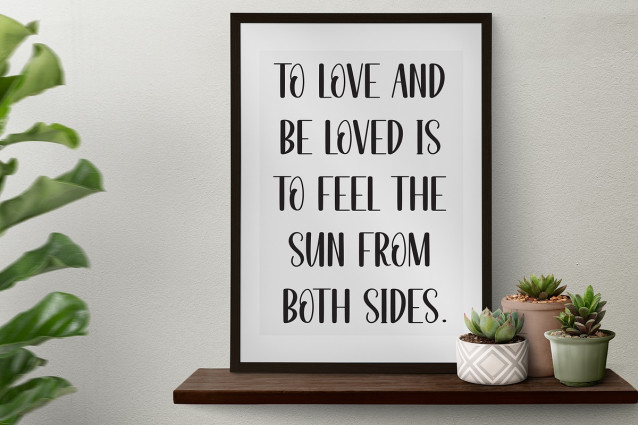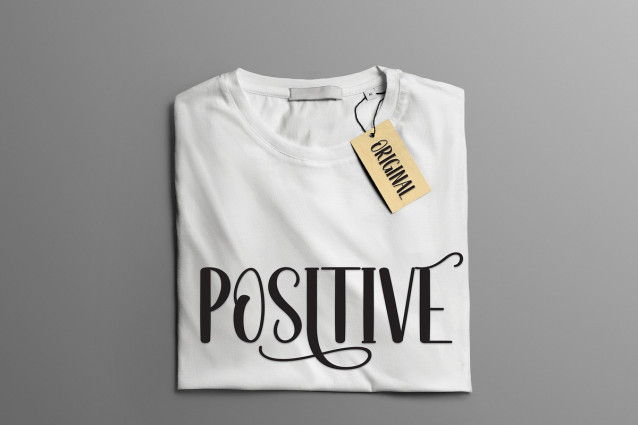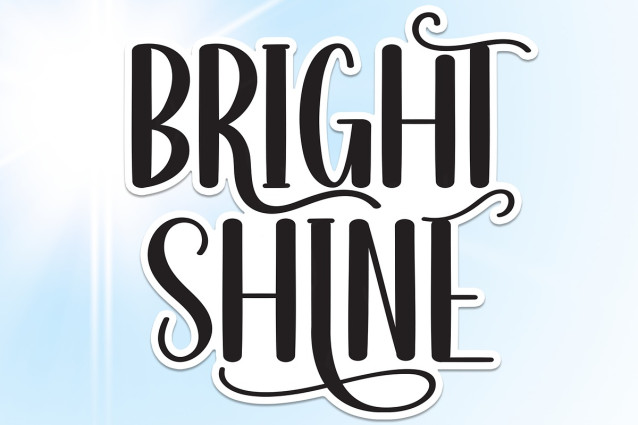
Bright Shine Handcrafted Font
Bright Shine Handcrafted Font A popular and professional script font. Modern and elegant, this typeface is made of beautiful creative strokes.This font is perfect for your creative ideas, both formal and informal. It has a modern style with a touch of creative ideas that is very suitable to be applied anywhere that requires creative ideas such as invitation cards,letterheads, website logos, social media, banners, advertisements, brochures, packaging products, leather products, and any product that requires writing.By using this font, all of your products will look luxurious, elegant, and attractive, please try and see the results.This font includes a complete set of beautiful upper and lowercase letters, numbers, a wide variety of punctuation marks, and ligatures. All lowercase letters include a start and end, providing a realistic style. everything you get.Included in this set: OTF, .TTF, .SVG, .WOFF file, Web Fonts included, Can be accessed completely without additional design software.,Please note that Stylistic Alternates will require professional design software such as Adobe Illustrator, Photoshop, InDesign or Inkscape.